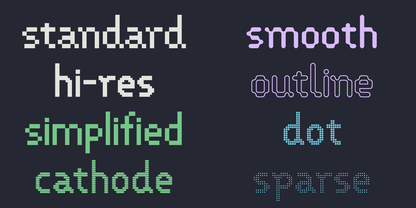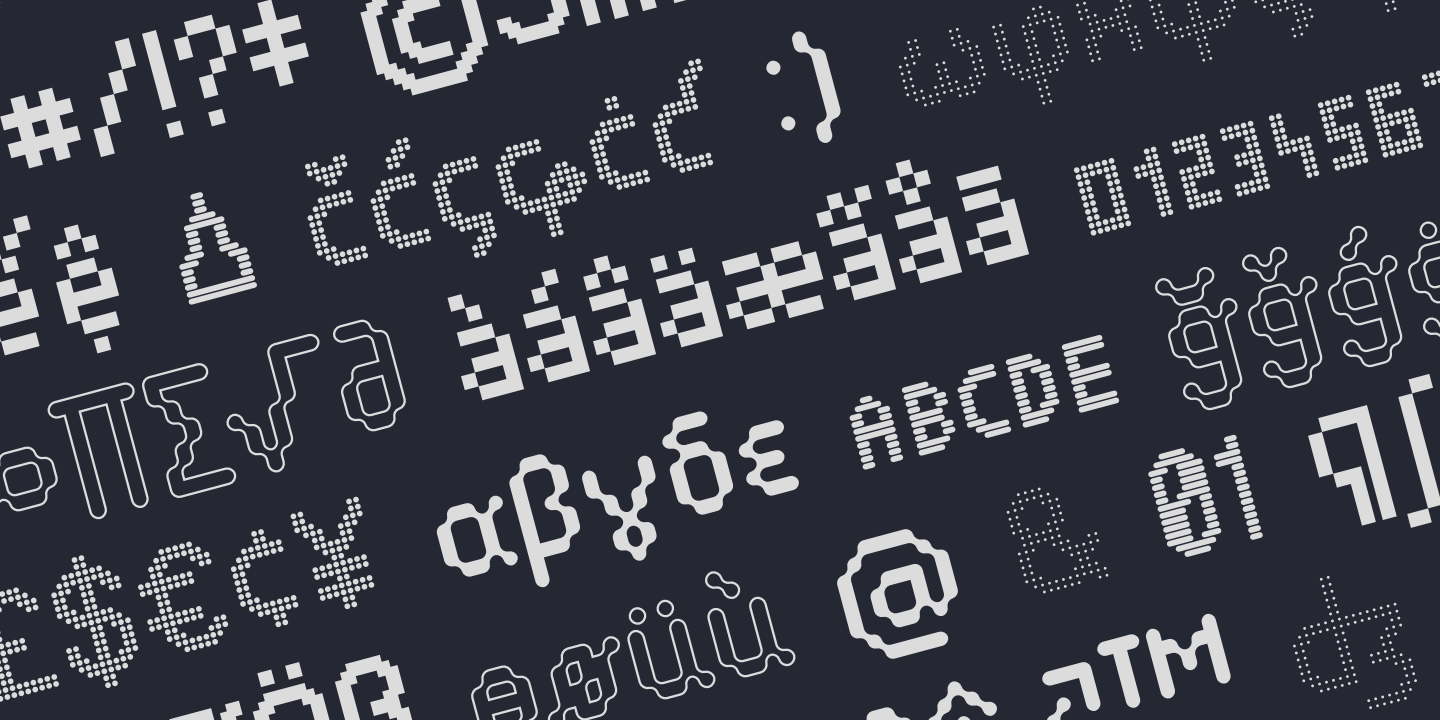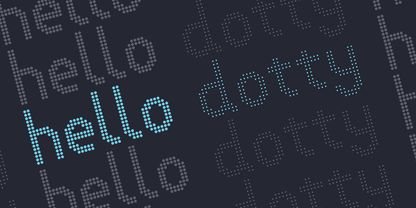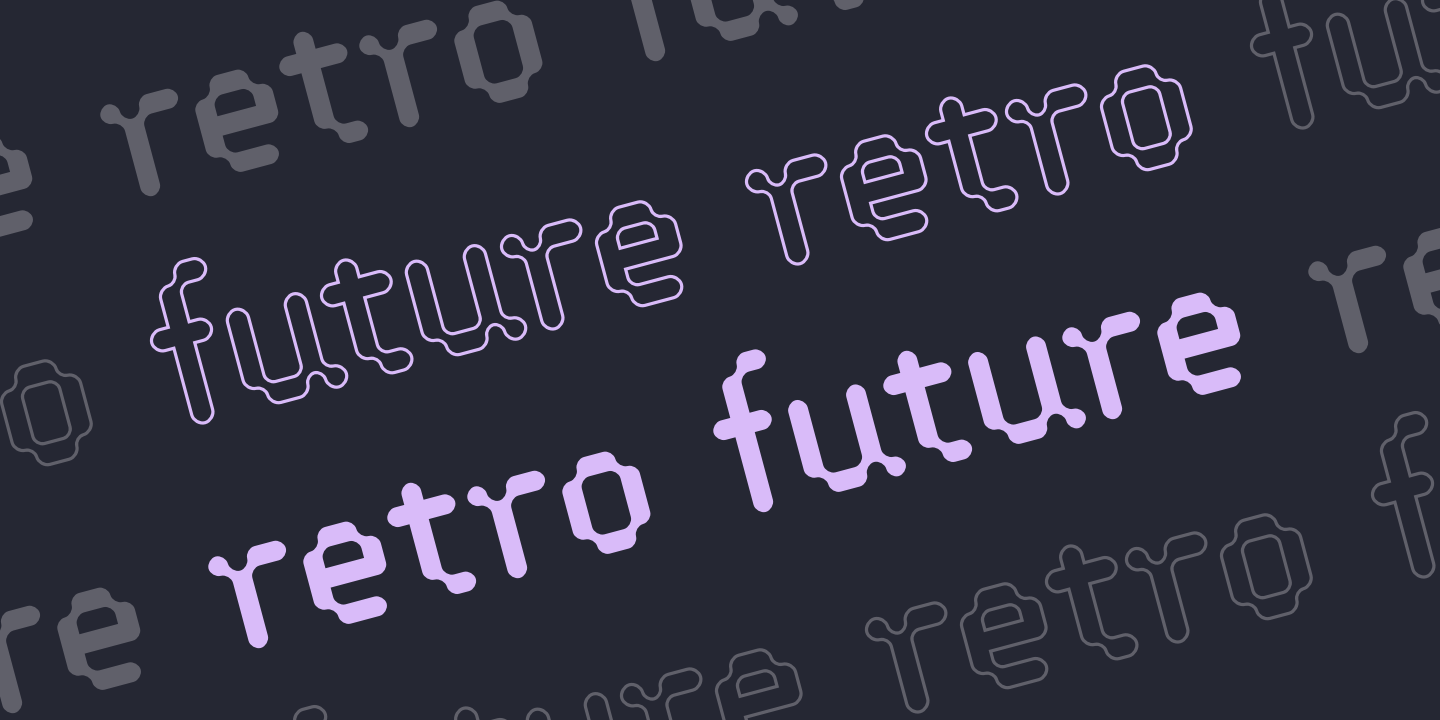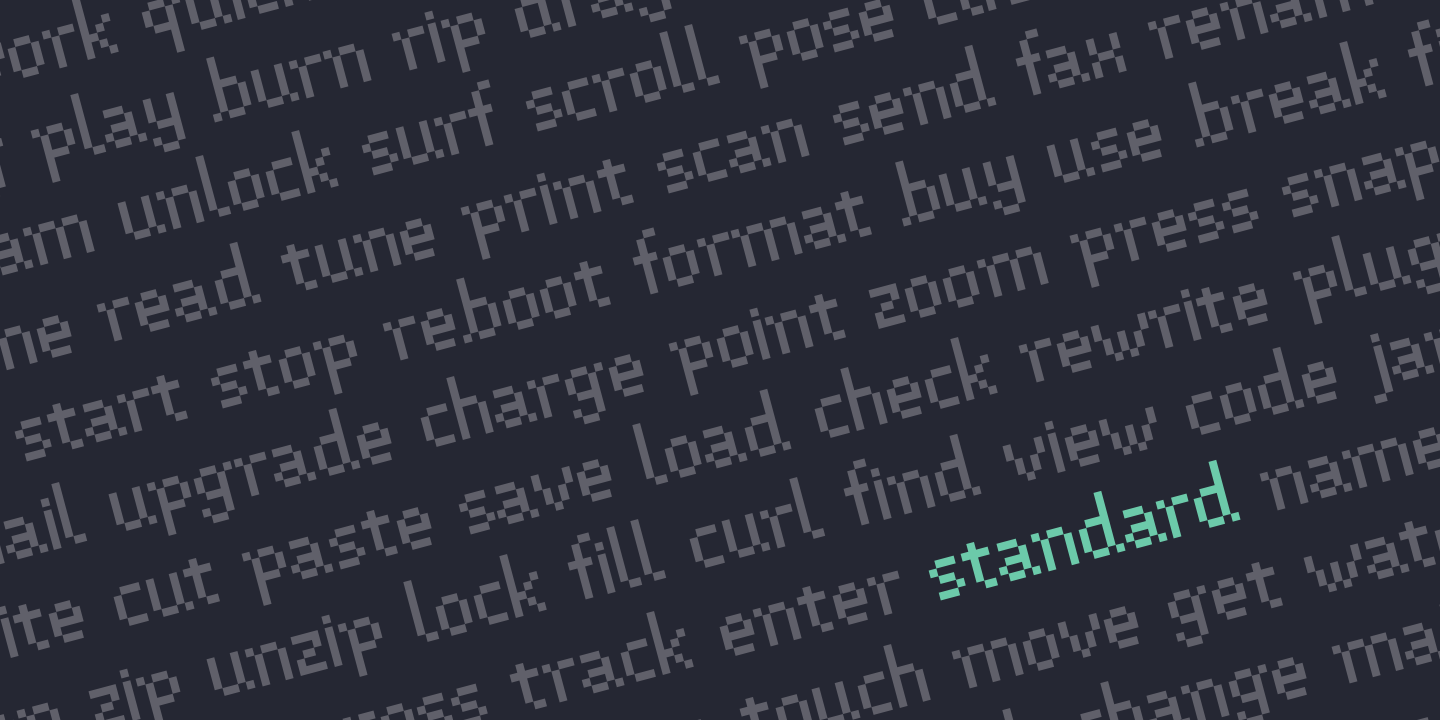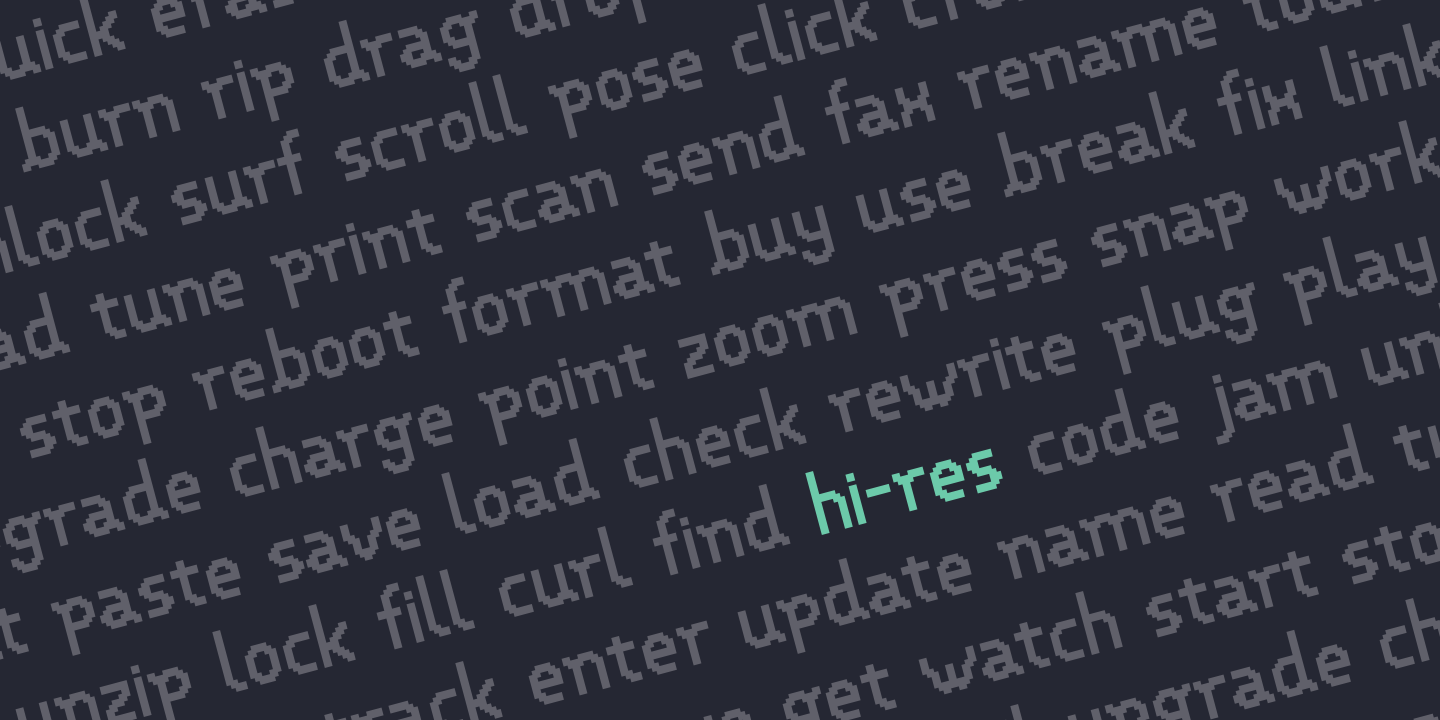
VP Pixel is a font family of eight fonts.
Eight modern takes on the classic grid, that feel both retro and futurist.
The family includes diverse and versatile styles of an extensive character set, with support for advanced OpenType features; making VP Pixel a smart typeface of unique personality.